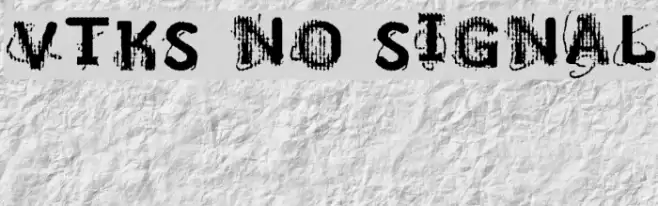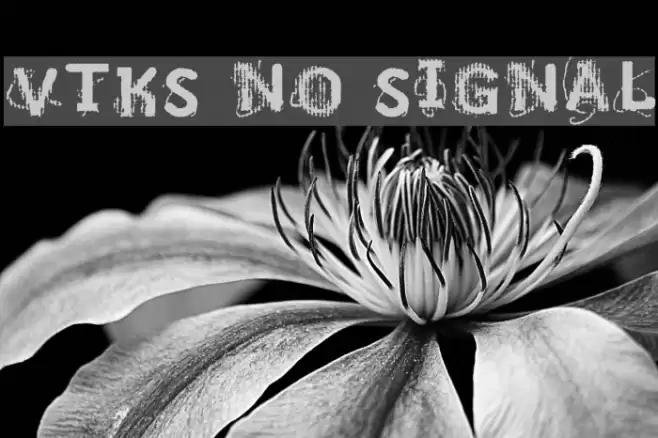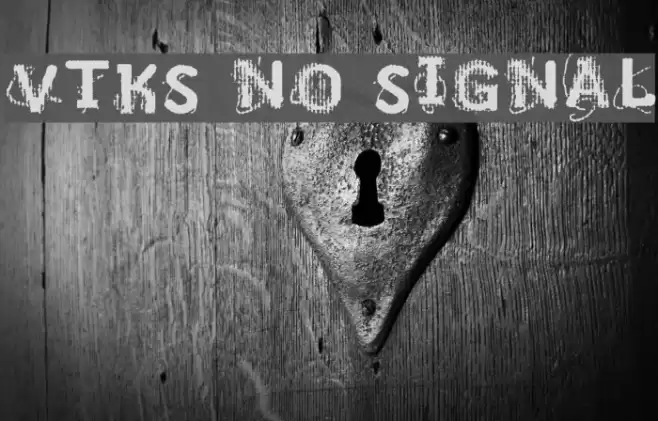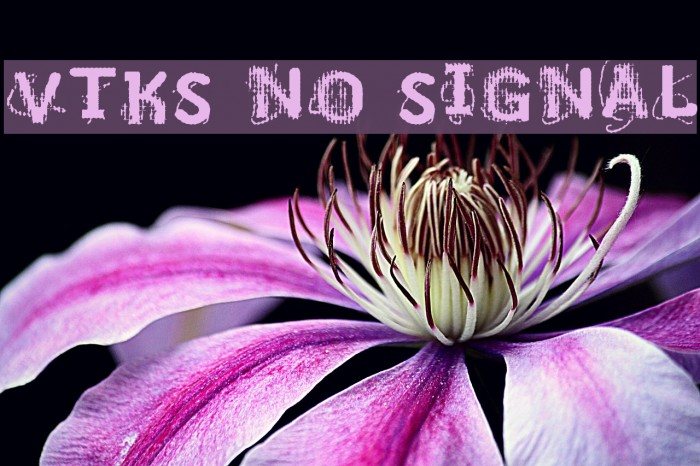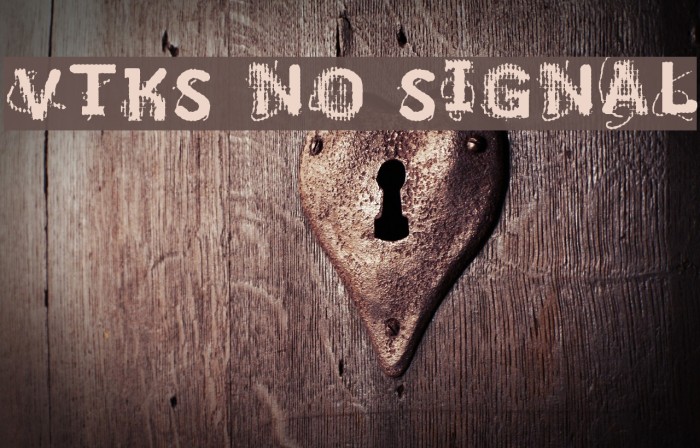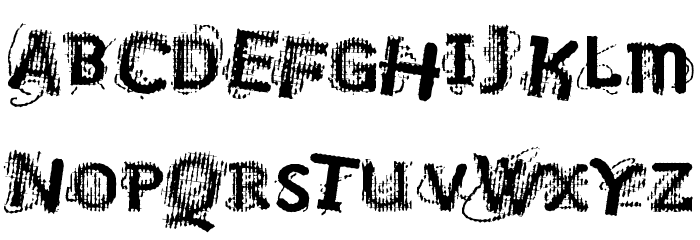
VTKS NO SIGNAL Font
VTKS NO SIGNAL Description
This font features a distressed and grungy style, characterized by irregular edges and a textured appearance that mimics static or interference. The uppercase letters are bold and impactful, with a unique, chaotic aesthetic that suggests movement and energy. The lowercase letters maintain the same distressed look, offering a cohesive design throughout. Numbers and special characters follow the same theme, ensuring consistency across all glyphs. This font is ideal for projects that require a raw, edgy feel, such as music album covers, posters, or any design that aims to convey a sense of rebellion or nonconformity.
A distressed, grungy font with a chaotic, textured appearance from Uncategorized fonts.
- Proposed Projects: Ideal for music album covers, edgy posters, rebellious branding, and creative design projects.
- Overall Style: Grunge, Edgy, Chaotic